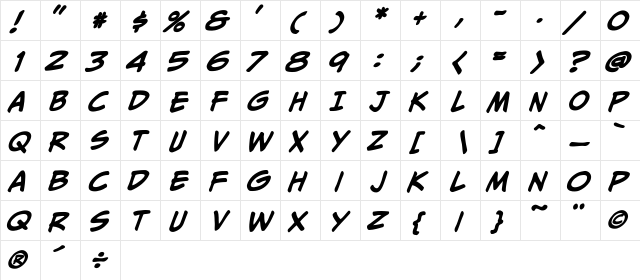
CCMeanwhile Bold Italic
Design Context for CCMeanwhile Typeface
CCMeanwhile is a composed and adaptable typeface that performs quietly and consistently across a wide range of design contexts. Its italic angle brings a sense of urgency and motion to the letterforms. The heavy weight commands attention and anchors typographic hierarchies.
Pro Tip: Use CCMeanwhile for emphasis, pull quotes, and subheadings where its slanted energy can add rhythm to the layout.